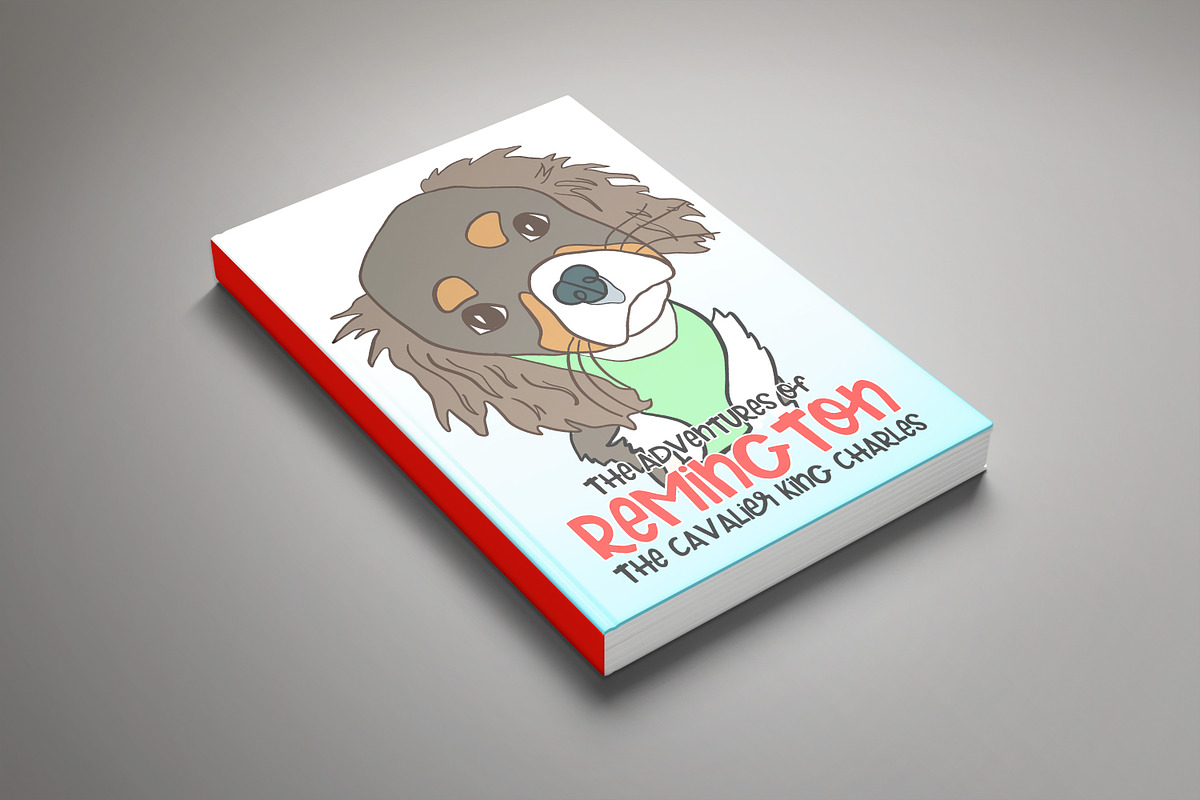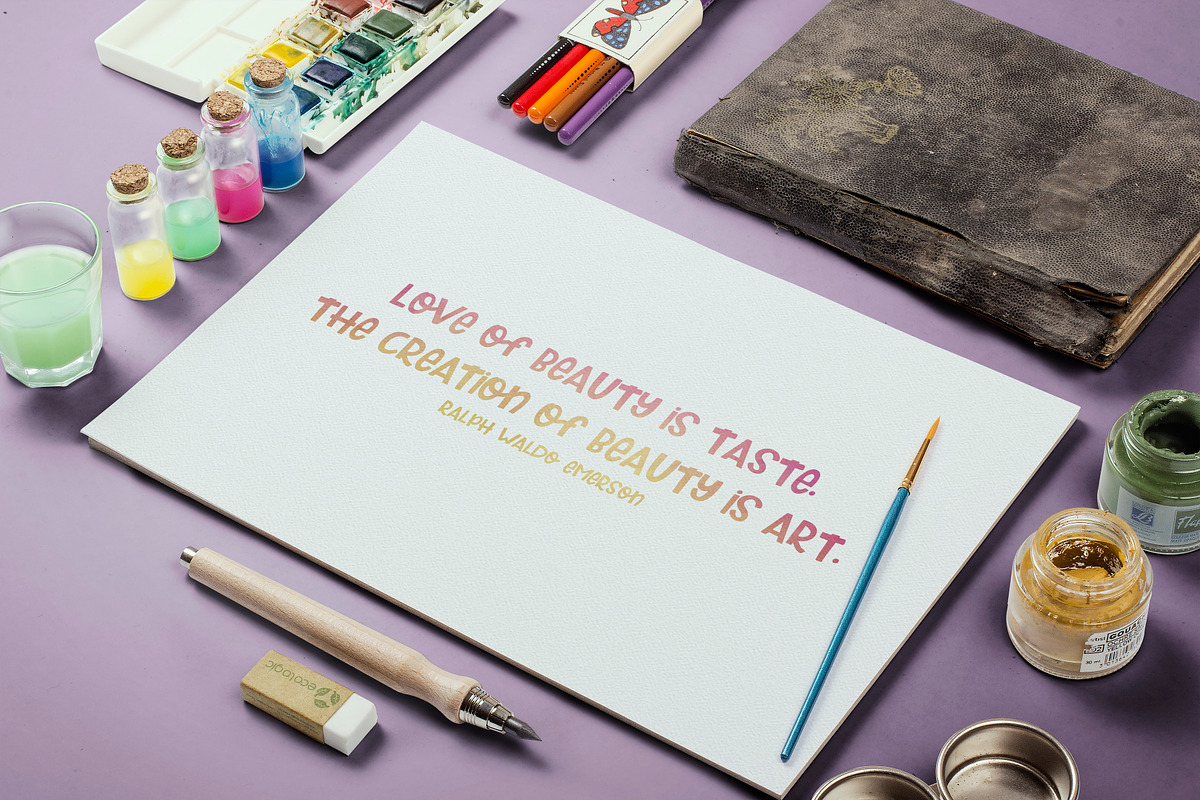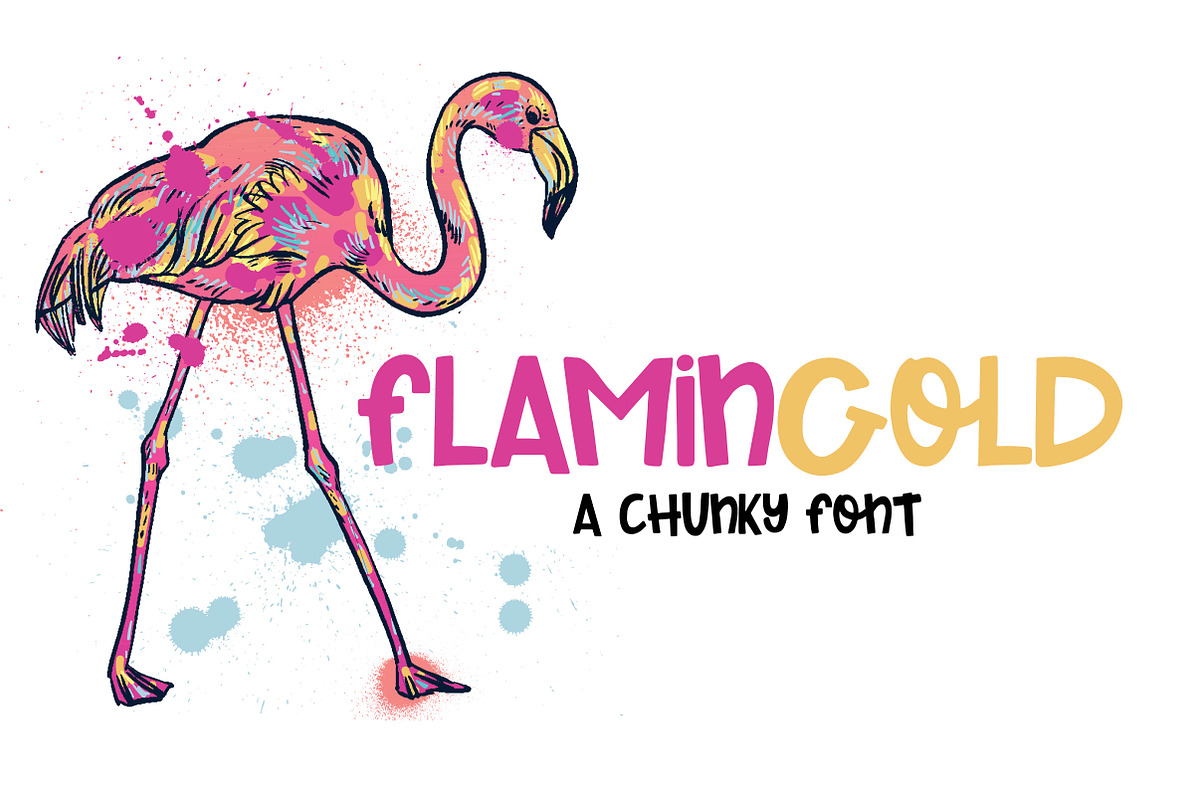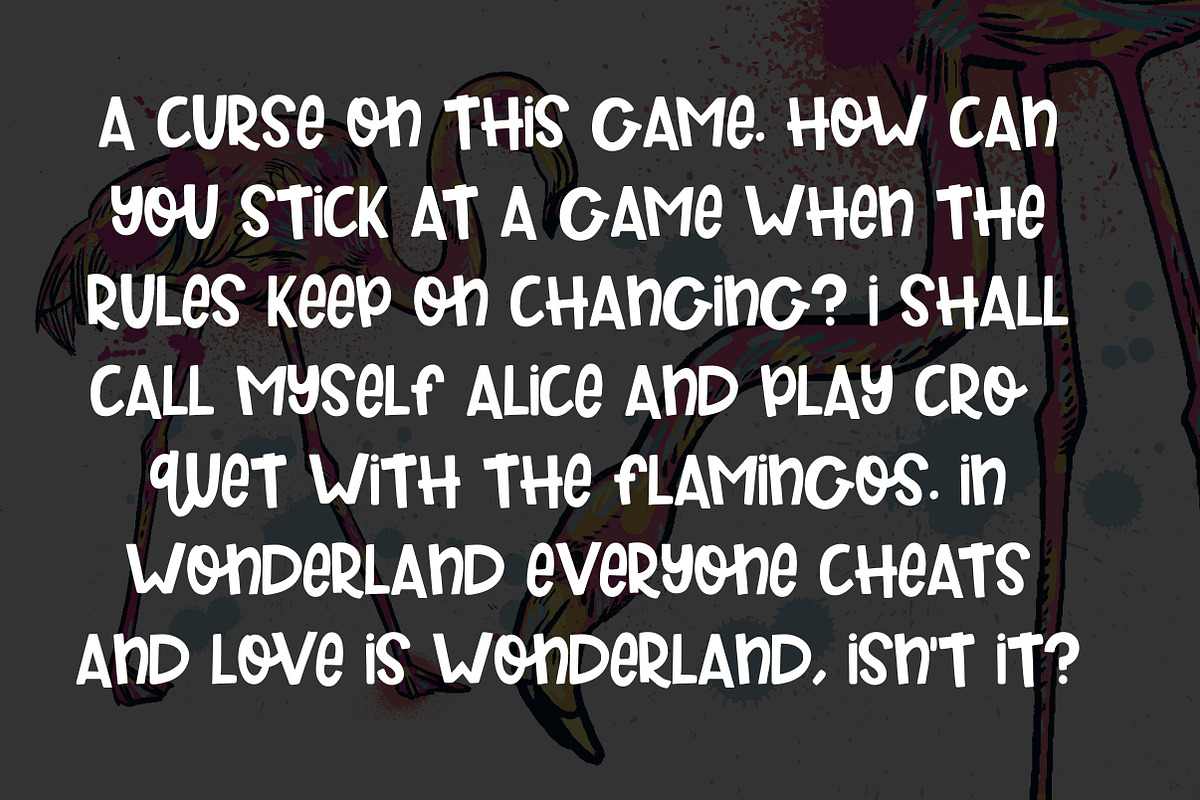
Flamingold - A Chunky Font
My favorite font to date. Flamingold is THE crafters font! This font cuts beautifully on your silhouette or cricut machines!
- Includes alphabet, numbers, punctuation and a few extra letter combos!
Flamingold - A Chunky Font by OnTheSpotStudio fits naturally into Branding, posters, packaging, typography.